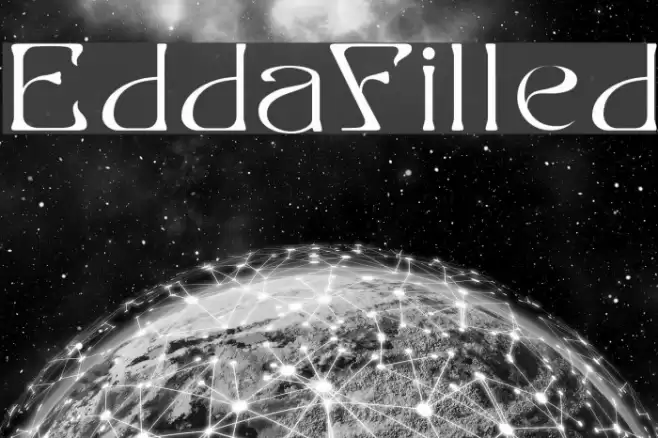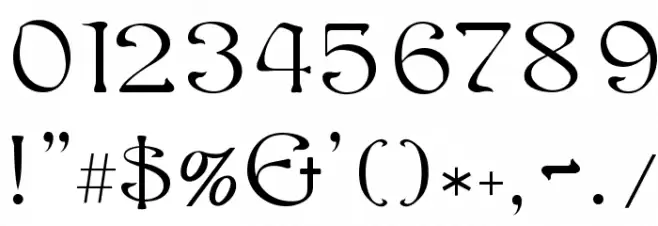
EddaFilled Font
EddaFilled Description
This font features a unique and artistic design, characterized by its decorative and slightly whimsical style. The uppercase letters exhibit a blend of sharp angles and smooth curves, creating a dynamic and engaging appearance. The lowercase letters maintain a consistent style, with certain characters like 'g' and 'y' having distinctive, playful loops. The numerals are bold and clear, with a consistent stroke width that ensures readability. Special characters are designed with the same attention to detail, adding to the font's overall cohesive look. This font's artistic flair makes it suitable for creative projects that require a touch of elegance and uniqueness.
A decorative and artistic font with a blend of sharp angles and smooth curves from Uncategorized fonts.
- Proposed Projects: Ideal for creative projects such as invitations, posters, and branding materials that require a unique and artistic touch.